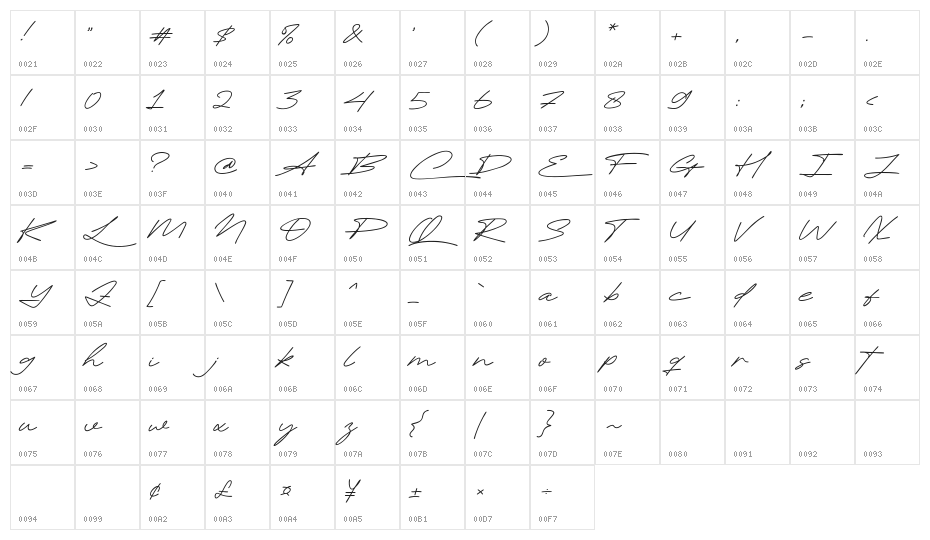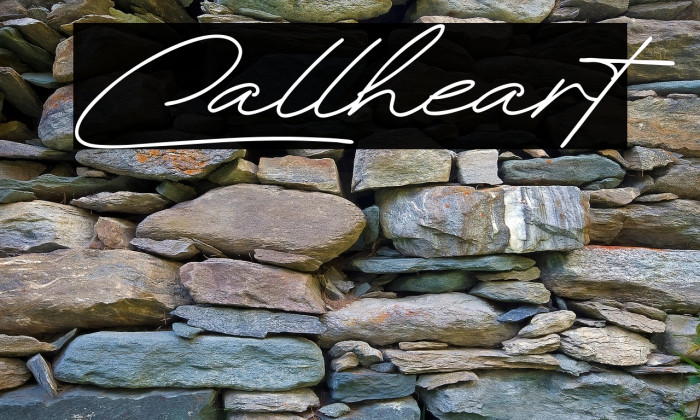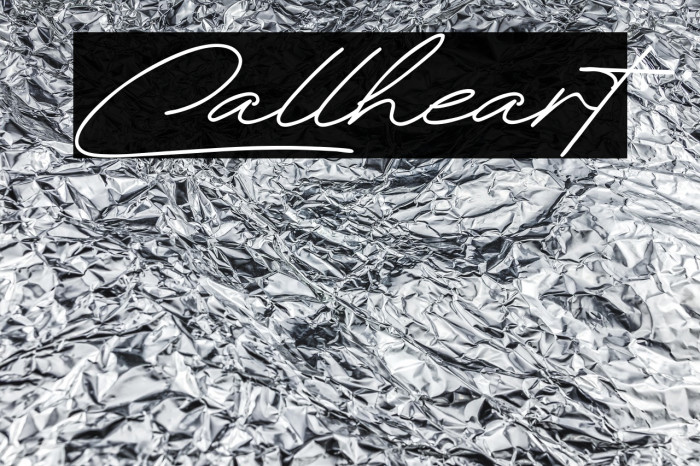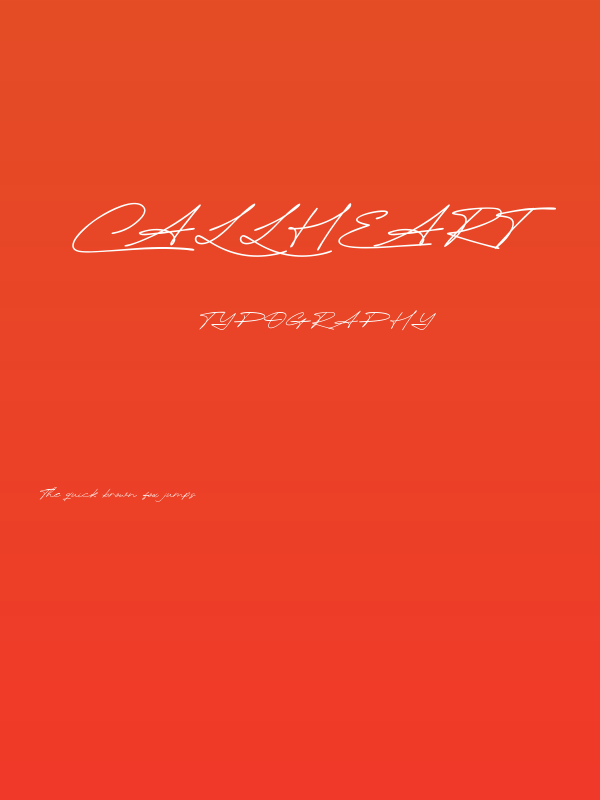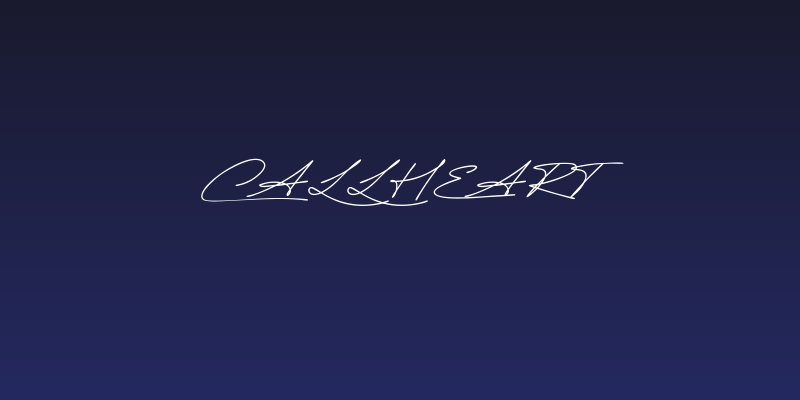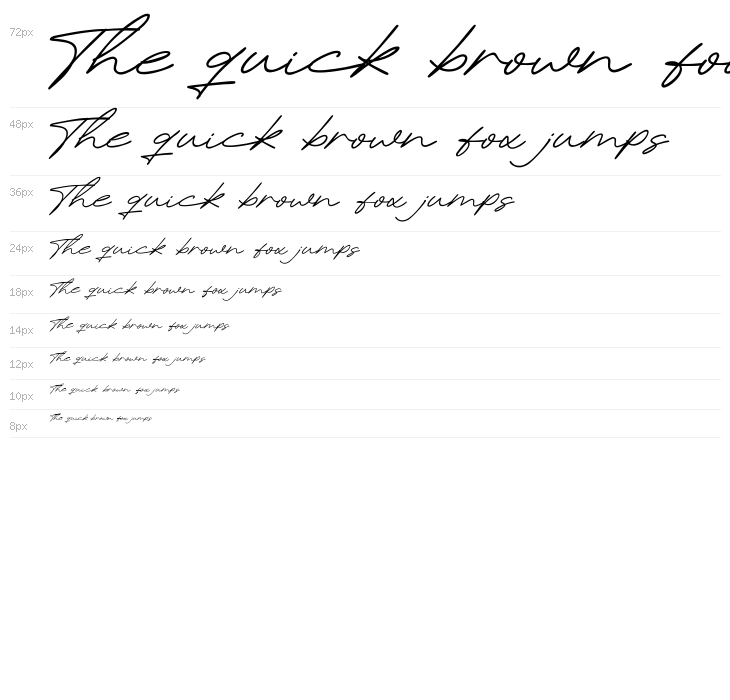
Callheart Font
Callheart Description
This font exudes a sense of elegance and fluidity, characterized by its cursive, handwritten style. The letters are interconnected, creating a seamless flow that mimics natural handwriting. The strokes are smooth and slightly varied in thickness, adding a touch of sophistication and dynamism. The uppercase letters maintain a consistent height, while the lowercase letters are slightly smaller, enhancing readability. The numerals and special characters are crafted with the same attention to detail, ensuring a cohesive appearance across all elements. This font's graceful curves and stylish flair make it ideal for projects that require a personal or artistic touch.
| Overall Style | Elegant, Artistic |
| Use Case | Logos, Invitations, Personal Correspondence |
| Proposed Projects | Ideal for wedding invitations, personal letters, branding, and artistic projects. |